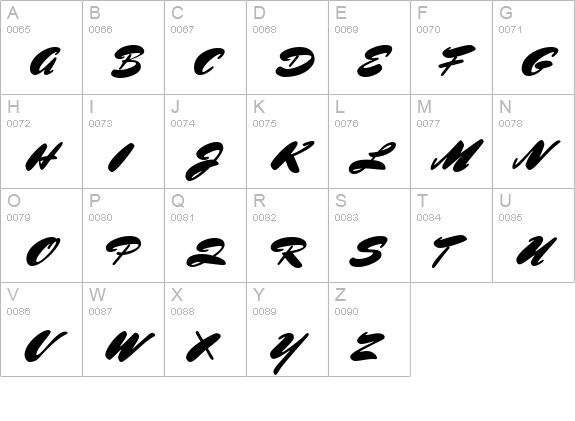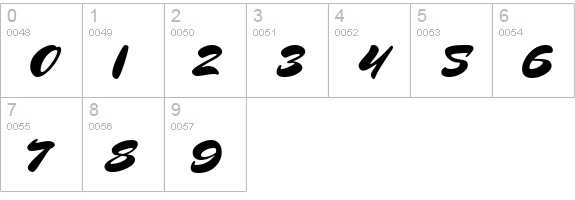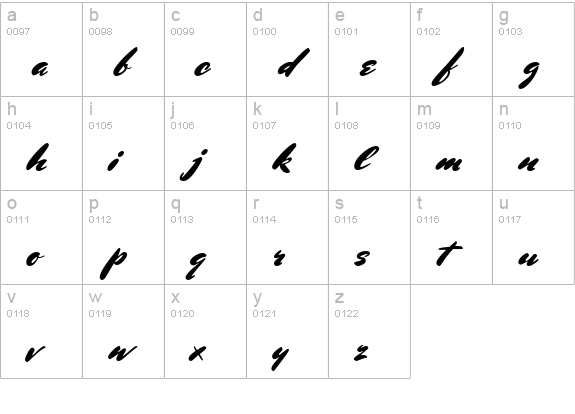
Mr Sheppards Font Details
"Introducing Mr Sheppards font, a stylish and versatile typeface that exudes elegance and sophistication. With its clean lines and modern aesthetic, this font is perfect for a wide range of design projects, from branding to editorial layouts. Mr Sheppards font is not only visually appealing, but also highly functional, making it suitable for both display and body text. Its timeless appeal ensures that your designs will stand the test of time. The best part? Mr Sheppards font is available for free download at FontsMarket.com. That's right, you can elevate your design projects with this exquisite font without breaking the bank. Don't miss out on this opportunity to add Mr Sheppards font to your collection today!"